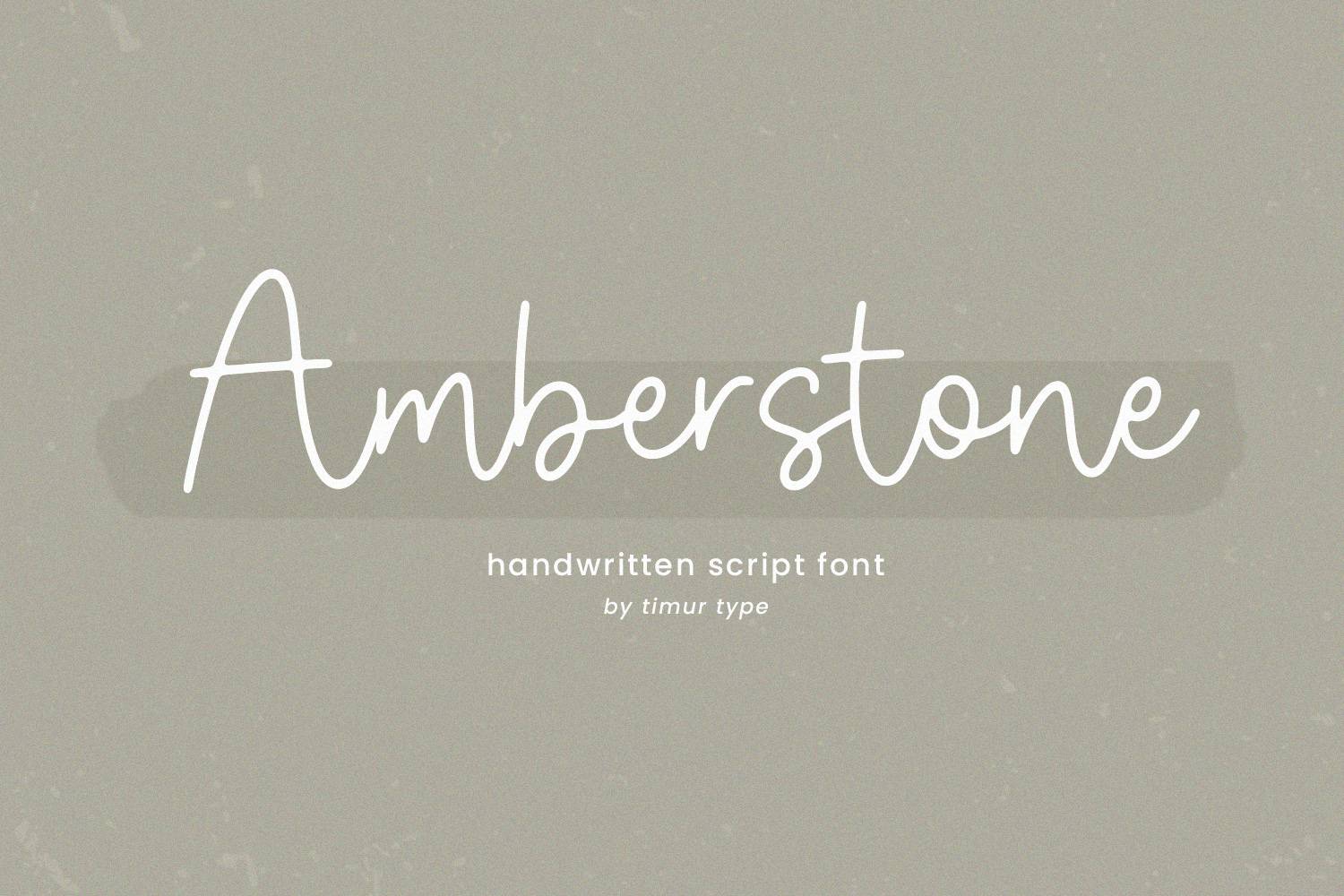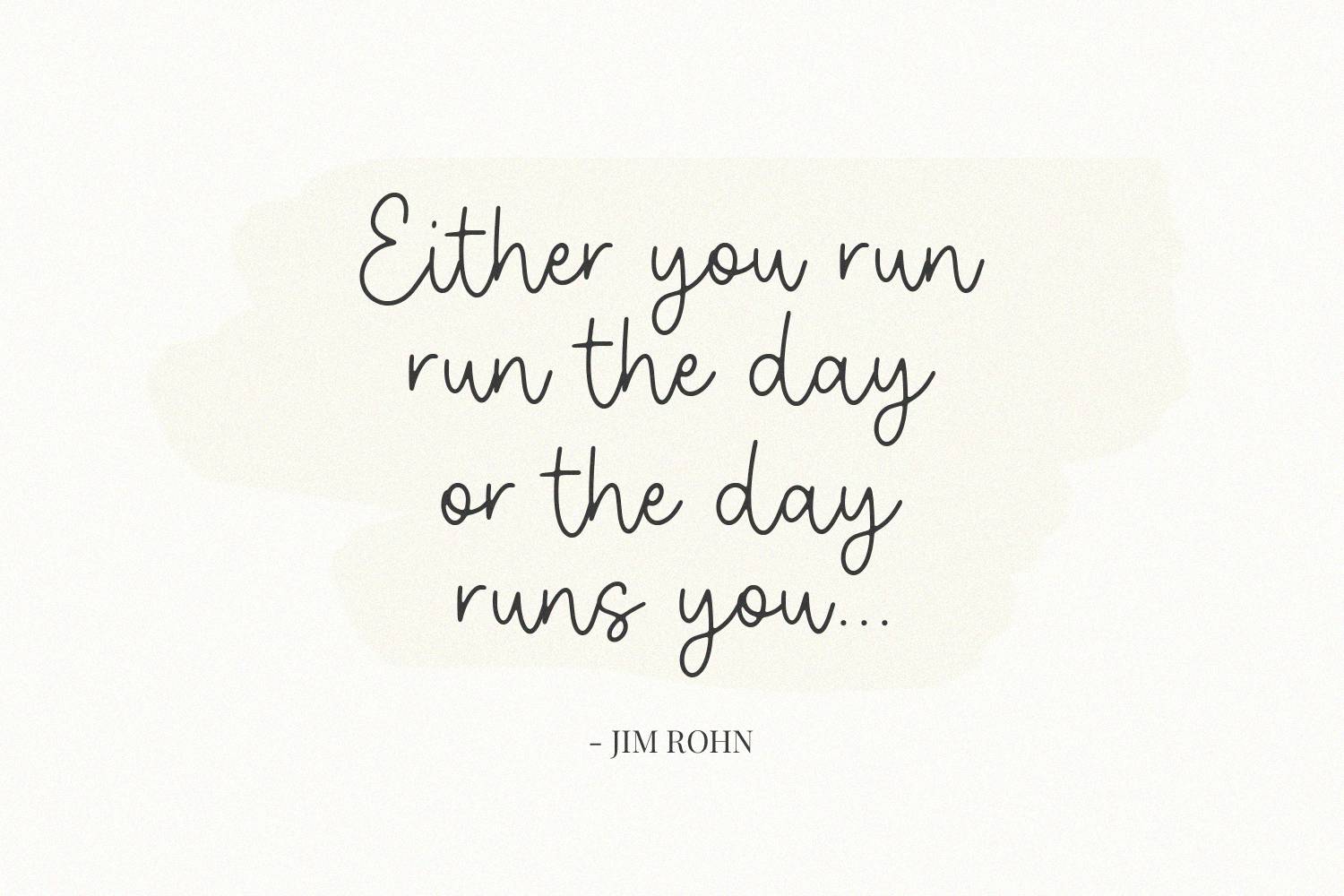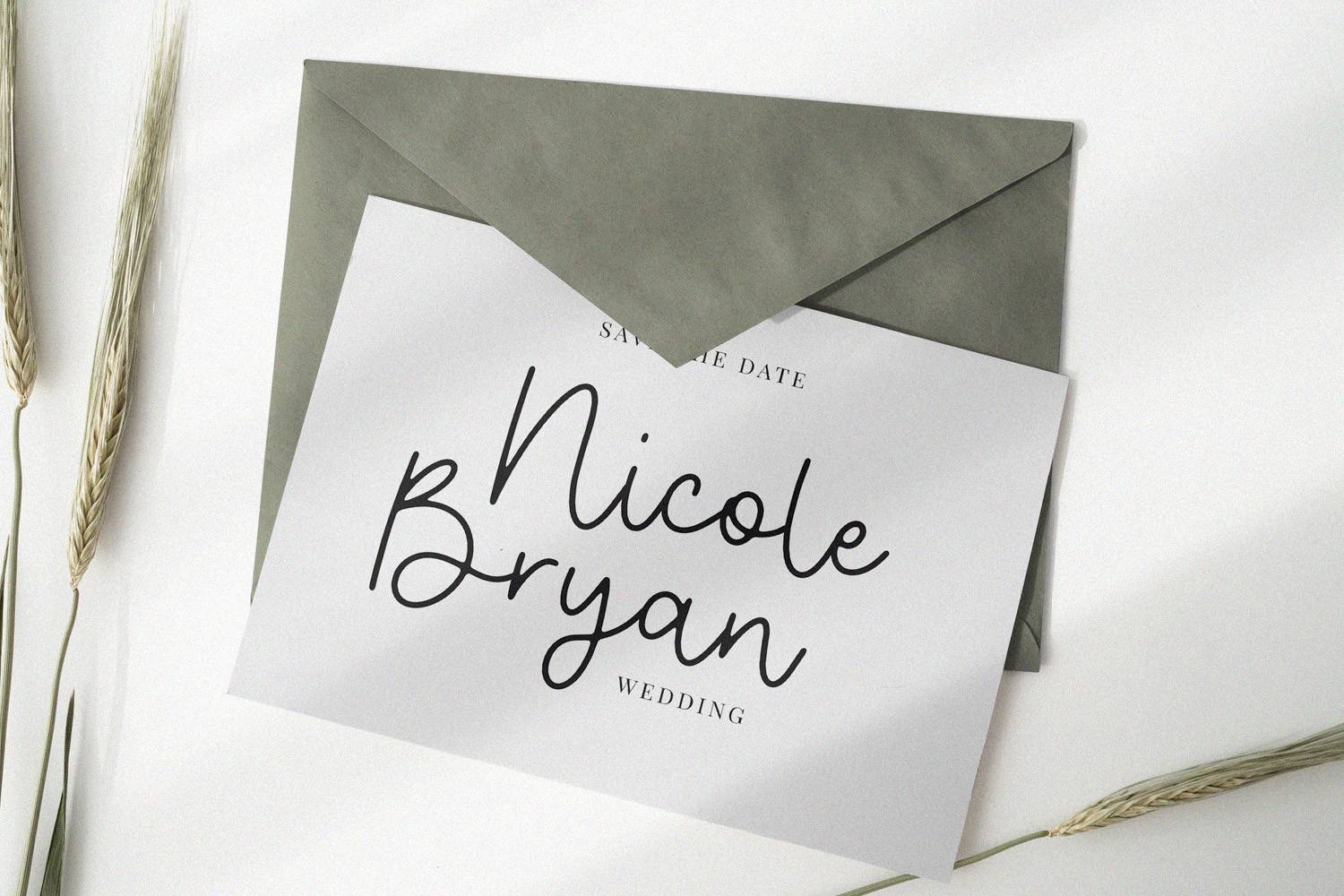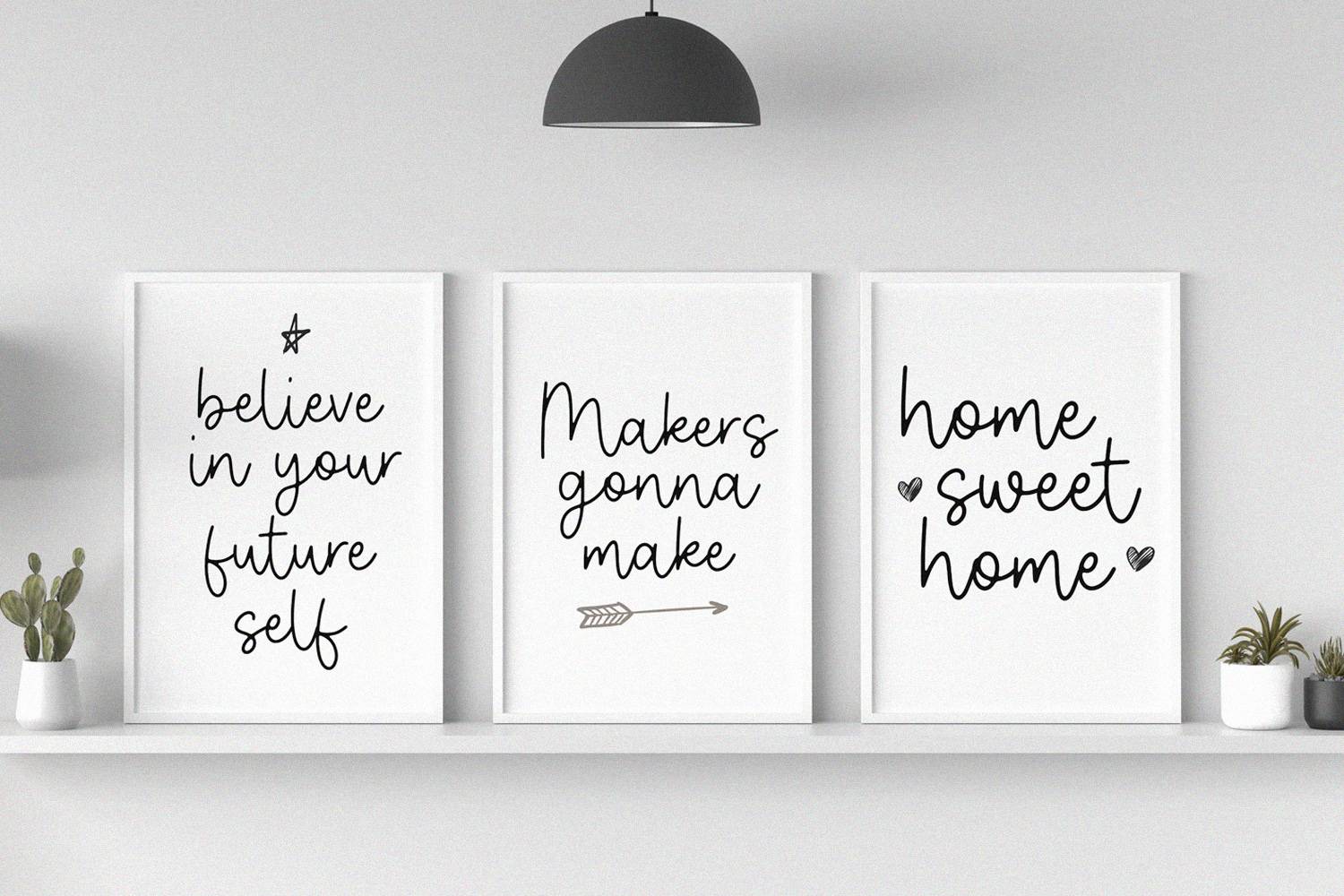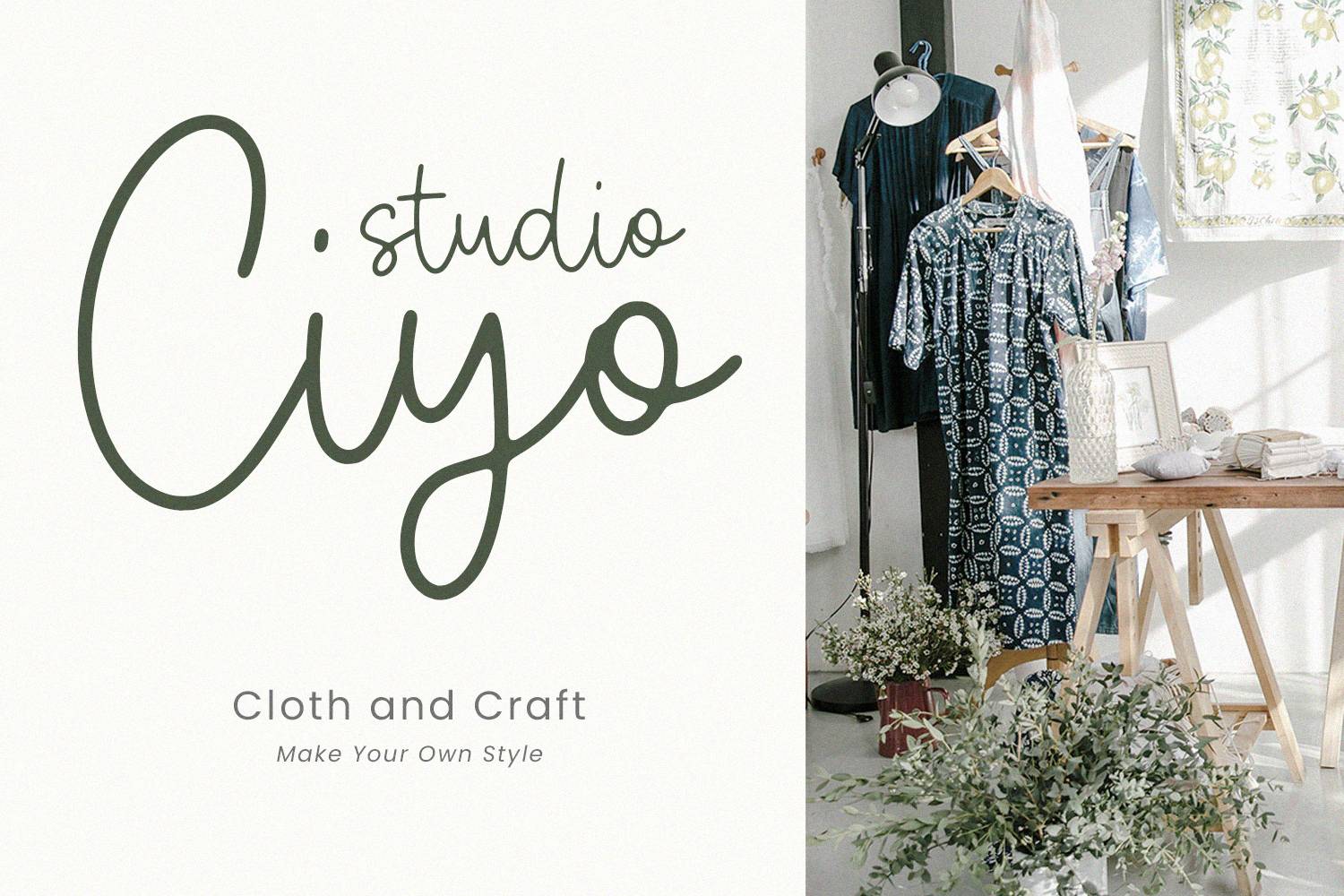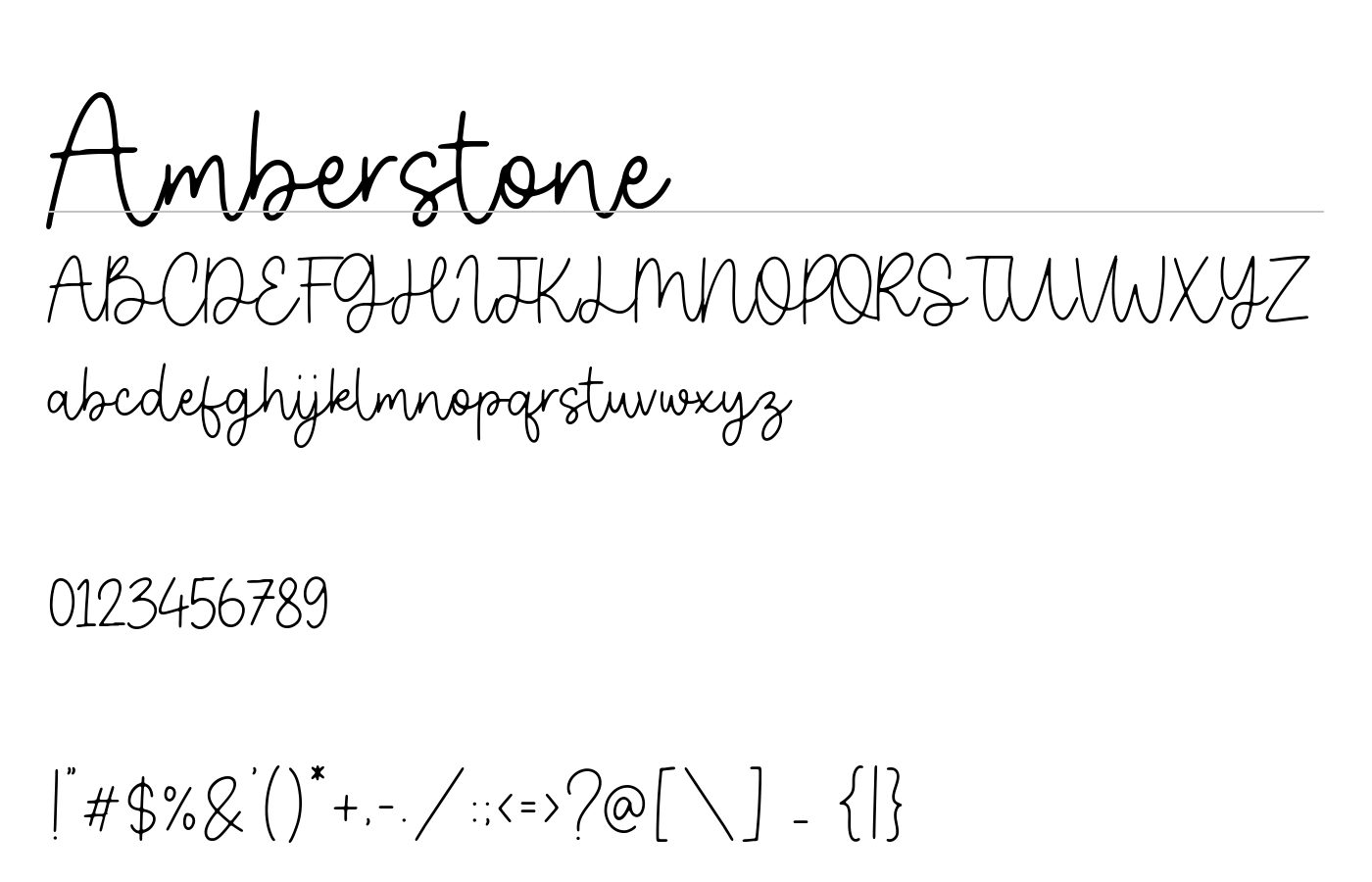
Amberstone is a casual handwritten script font with a light, airy feel and playful character. Its thin strokes and loosely connected letterforms give it a friendly and approachable style, making it ideal for creative projects, personal branding, and informal communications. This font works well for logos, invitations, and social media graphics where a personal, human touch is desired.
Amberstone Font
About Amberstone Font